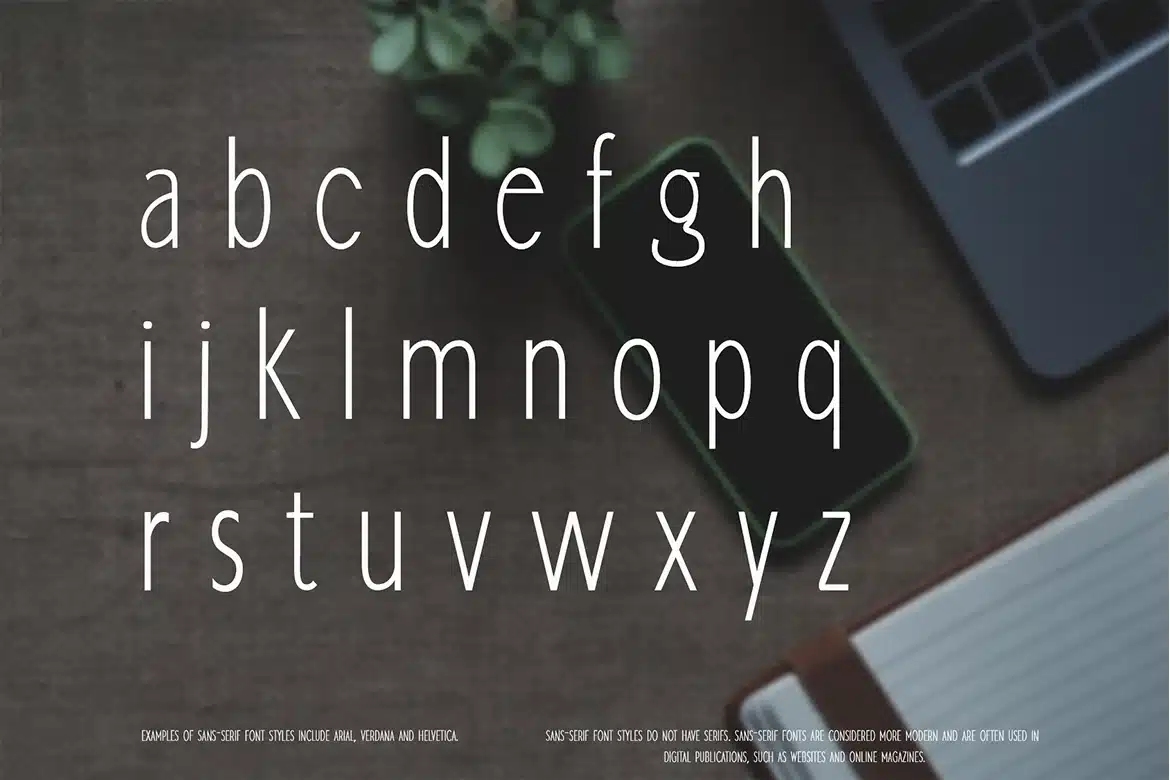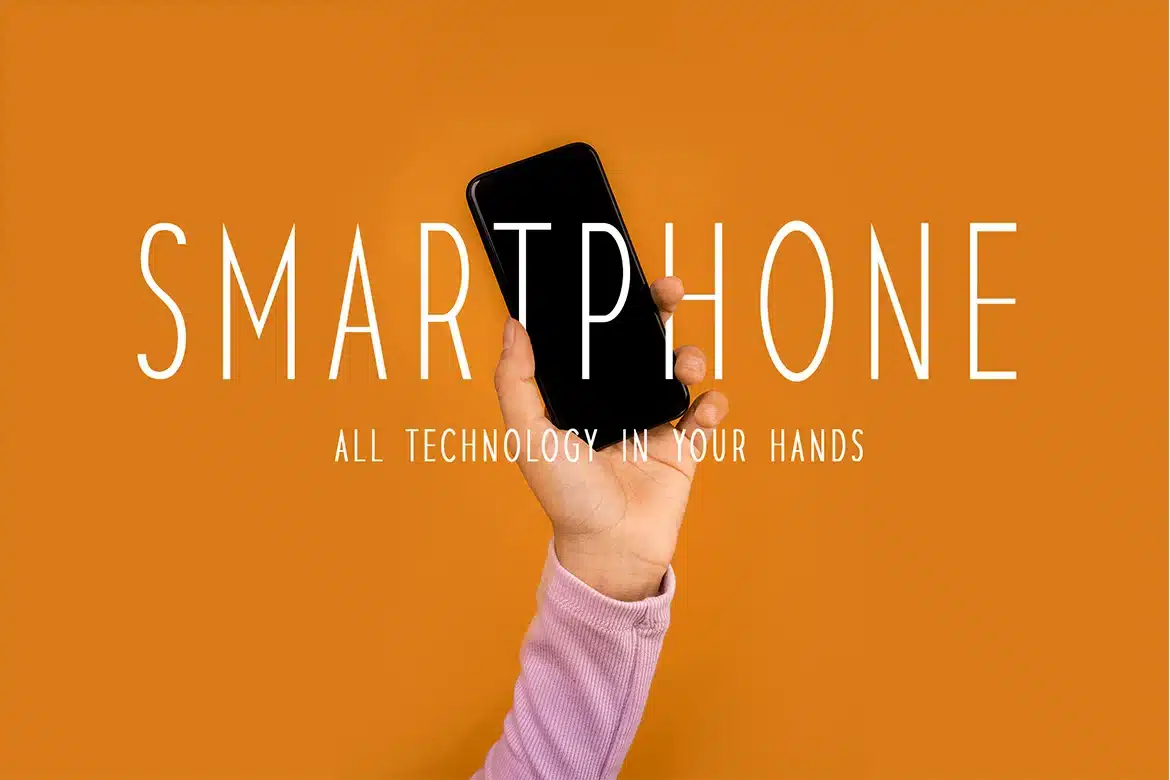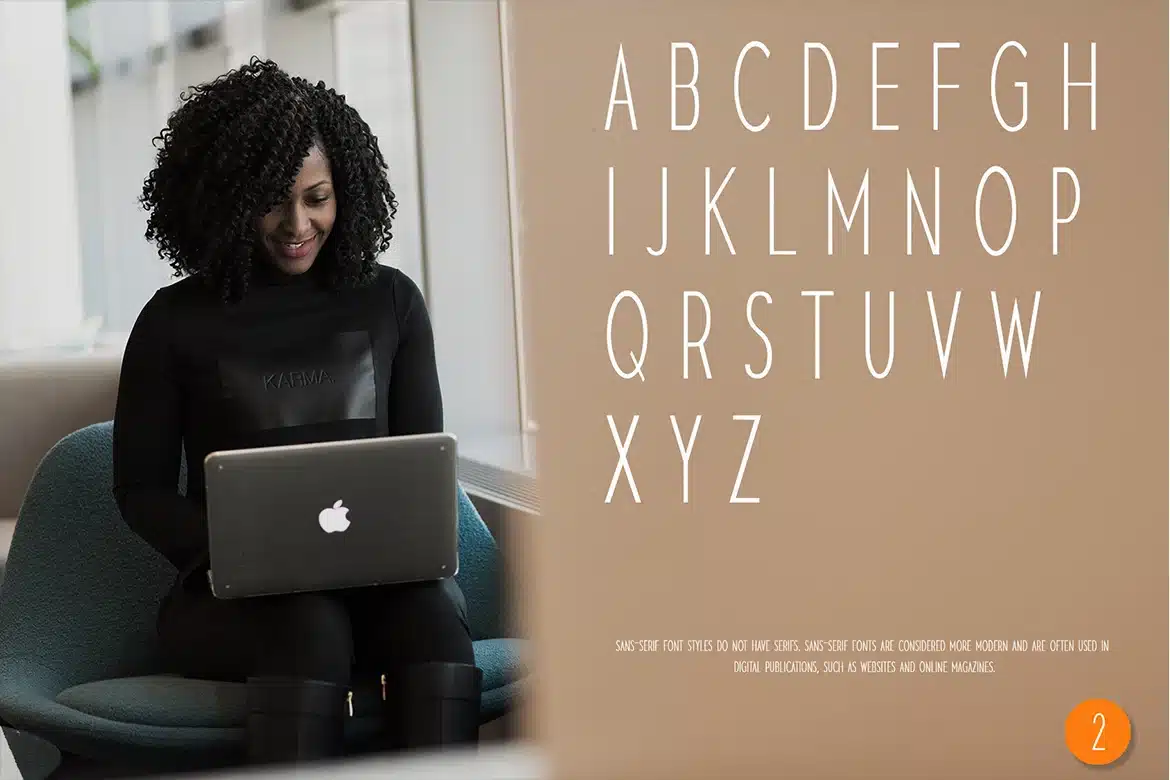
Yeolya Quin – Sans Serif Font
Introducing Yeolya Quin, a simple sansserif font.
So perfect for you who needs a typeface for logo designs, magazine, social media, brochure, and many more.